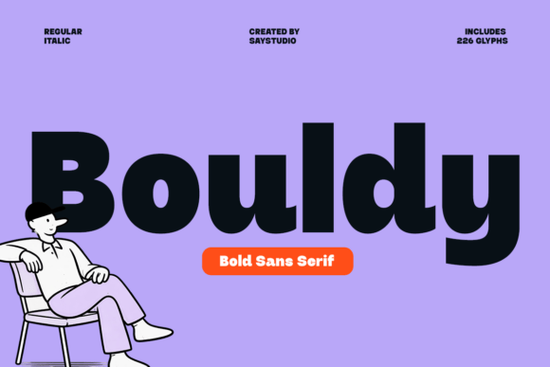
When it comes to choosing a font that can make your designs stand out, Bouldy Font is a fantastic option. This bold sans serif font is designed to deliver a strong, friendly, and modern visual presence. With its thick letterforms and smooth curves, Bouldy creates a confident yet approachable style that works well in a variety of design projects.
Why Choose Bouldy Font for Your Designs?
Bouldy Font is inspired by modern branding and casual design trends, making it perfect for projects that need a bold and engaging look. Whether you’re creating logos, social media content, posters, packaging, or headlines, this font adds a lively and impactful touch. Its balance between strength and friendliness makes it highly versatile across different creative fields.
Key Features of Bouldy Font
- Bold and Engaging: The thick letterforms and smooth curves give Bouldy a strong and memorable presence.
- Playful Personality: The rounded shapes add a playful and approachable feel, making it suitable for a wide range of design projects.
- Excellent Readability: Despite its bold appearance, Bouldy maintains excellent readability, ensuring your message is clear and easy to understand.
- Versatile Use: Ideal for branding, digital campaigns, and print-on-demand products, Bouldy helps communicate energy, creativity, and modern identity with ease.
How to Use Bouldy Font in Different Design Projects
Bouldy Font is incredibly versatile and can be used in a variety of design projects. Here are some practical ways to incorporate Bouldy into your designs:
For Logos and Branding
Using Bouldy for logos and branding can help create a strong and memorable identity. The bold and modern look of Bouldy can make your brand stand out and leave a lasting impression. Consider pairing Bouldy with a more subtle sans serif font like Nunito Sans to create a balanced and professional look.
For Social Media Graphics
When creating social media graphics, Bouldy can add a bold and engaging touch. Use it for headlines and key messages to grab the attention of your audience. For a cohesive look, you might also consider using Moon Walk for subheadings and body text.
For Print and Packaging
Bouldy’s excellent readability and bold appearance make it a great choice for print and packaging designs. Whether you’re designing labels, packaging, or promotional materials, Bouldy can help your message stand out. For a more traditional and elegant look, you might want to pair Bouldy with a classic serif font like Notebook.
For Digital Campaigns
In digital campaigns, Bouldy can add a modern and energetic feel. Use it for call-to-action buttons, banners, and other interactive elements to make them more noticeable and engaging. For a clean and modern look, consider using Godplan for additional text and details.
Tips for Using Bouldy Font Effectively
To get the most out of Bouldy Font, here are some tips to keep in mind:
- Balance Boldness with Simplicity: While Bouldy is bold, it’s important not to overuse it. Use it for key elements and pair it with simpler fonts for a balanced look.
- Test Readability: Always test the readability of Bouldy in different contexts, especially for smaller text sizes. Ensure that it remains clear and easy to read.
- Experiment with Colors: Bouldy looks great in a variety of colors. Experiment with different color schemes to find what works best for your project.
Final Thoughts
Bouldy Font is a versatile and engaging choice for designers, crafters, print-on-demand sellers, small businesses, and creative hobbyists. Its bold and modern appearance, combined with excellent readability, makes it a valuable addition to any design toolkit. By following the tips and using Bouldy effectively, you can create designs that are both impactful and memorable.